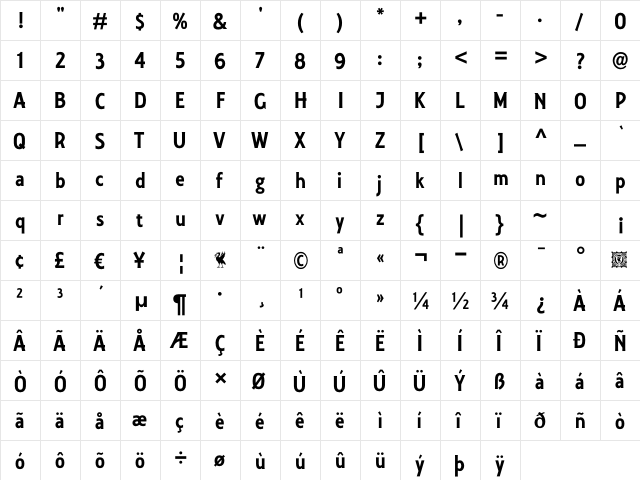
Collegiate Regular
Design Context for Collegiate Typeface
Collegiate takes a measured approach to typography — its balanced proportions and neutral character make it a reliable workhorse for both digital and print work.